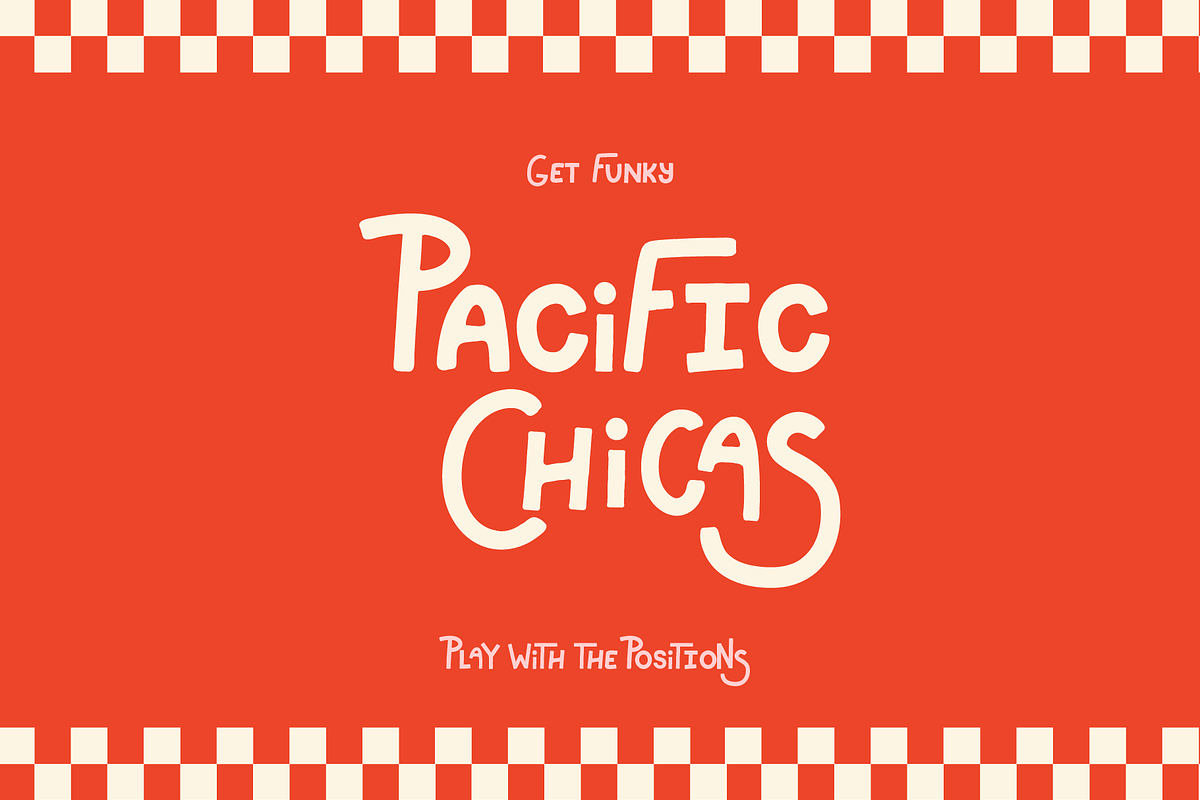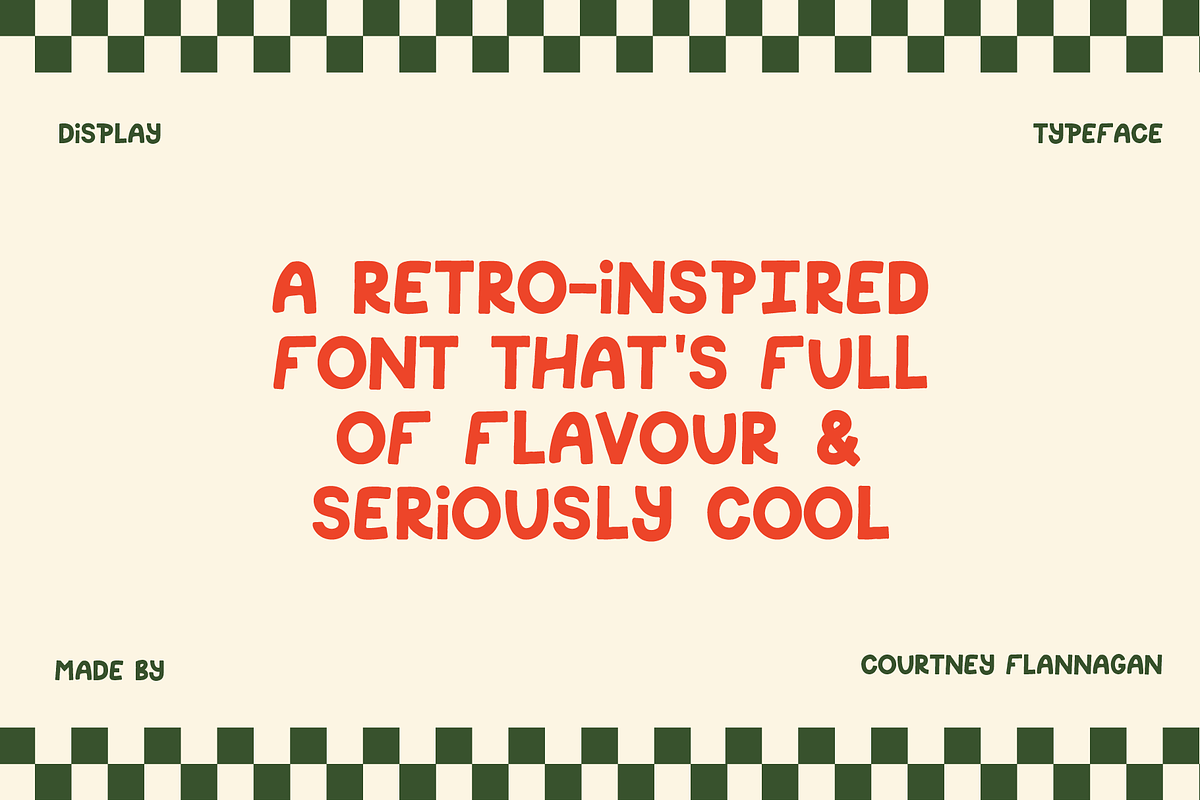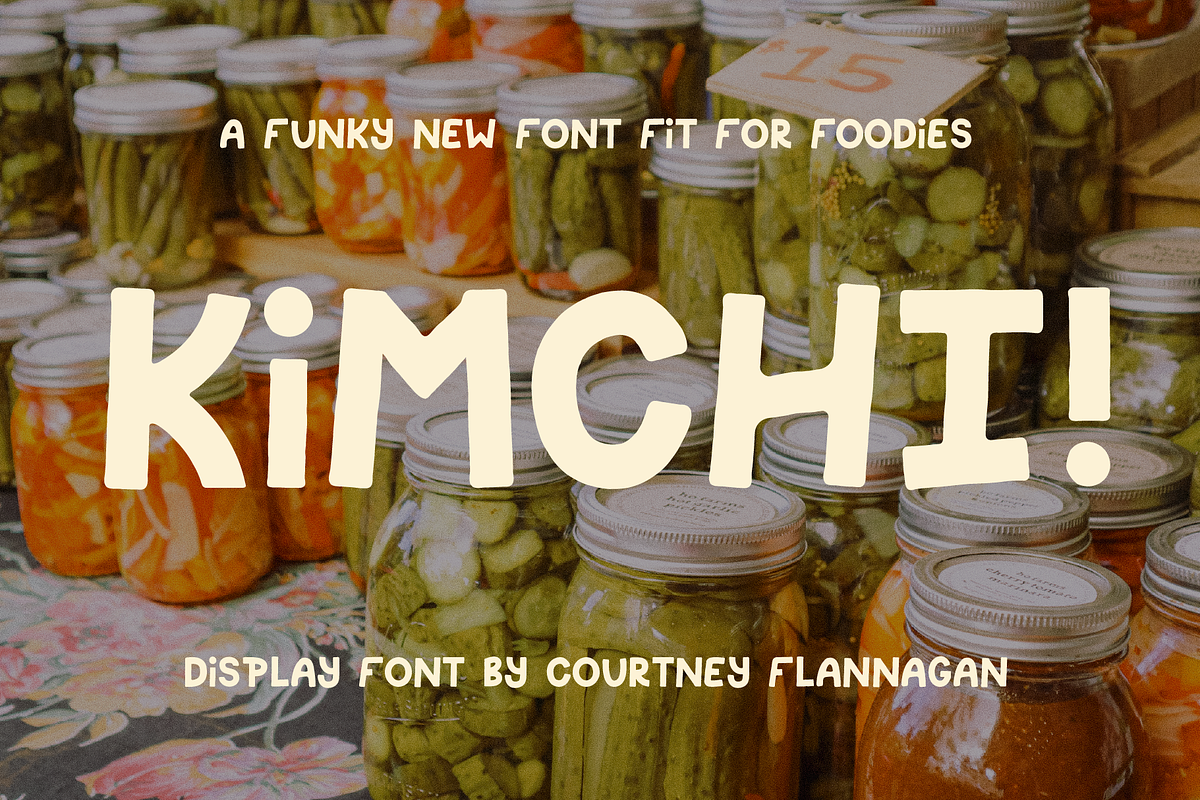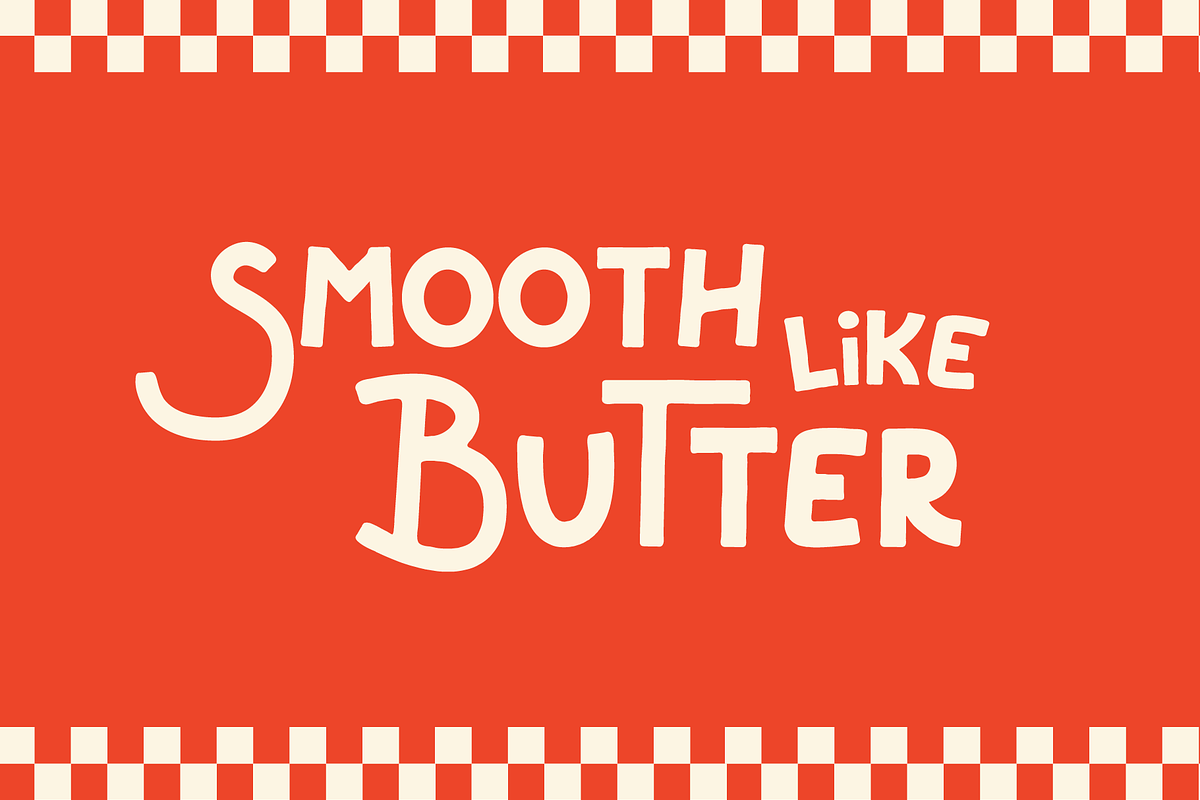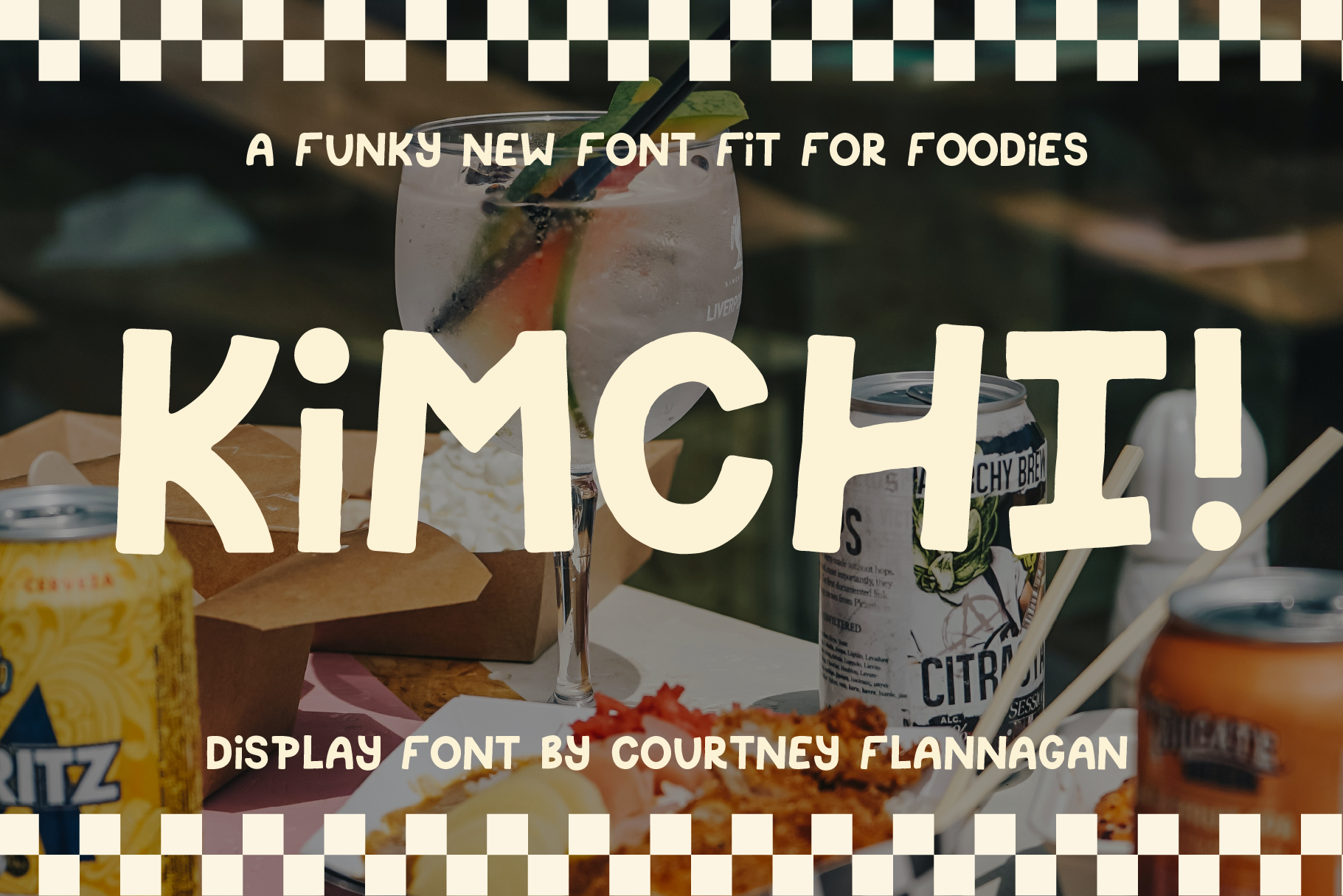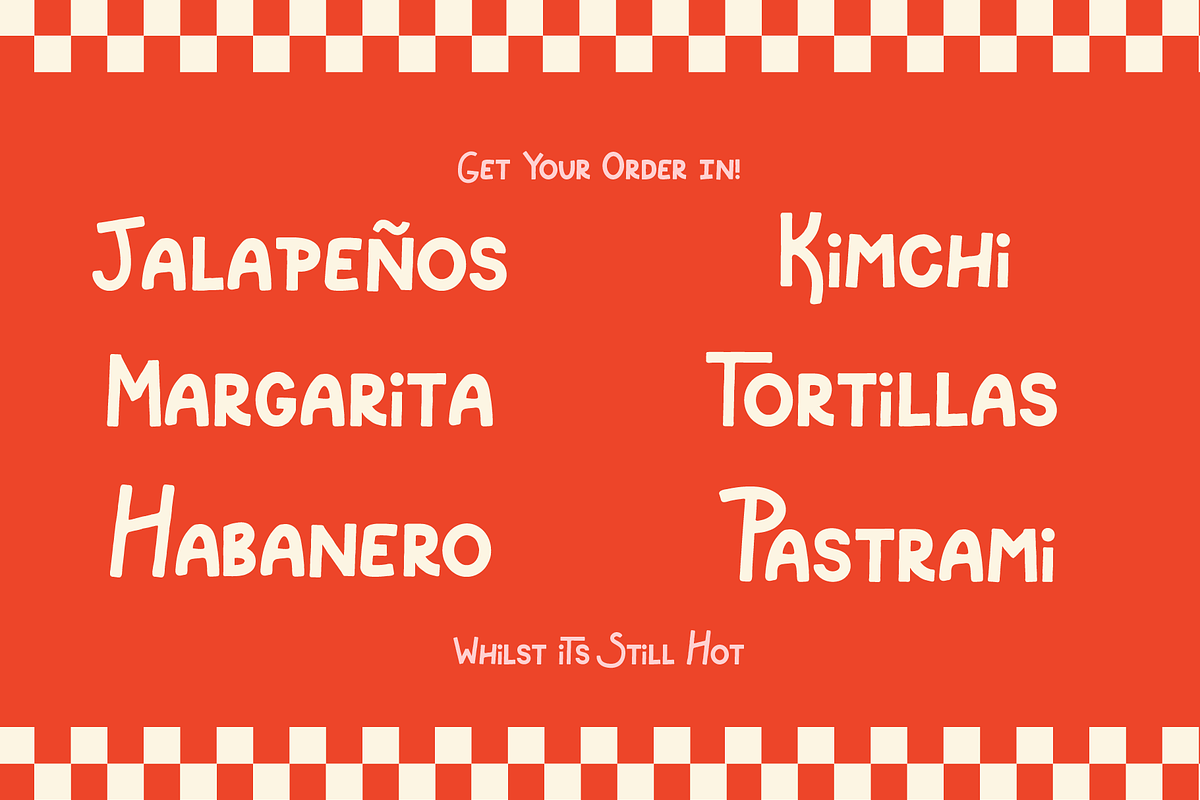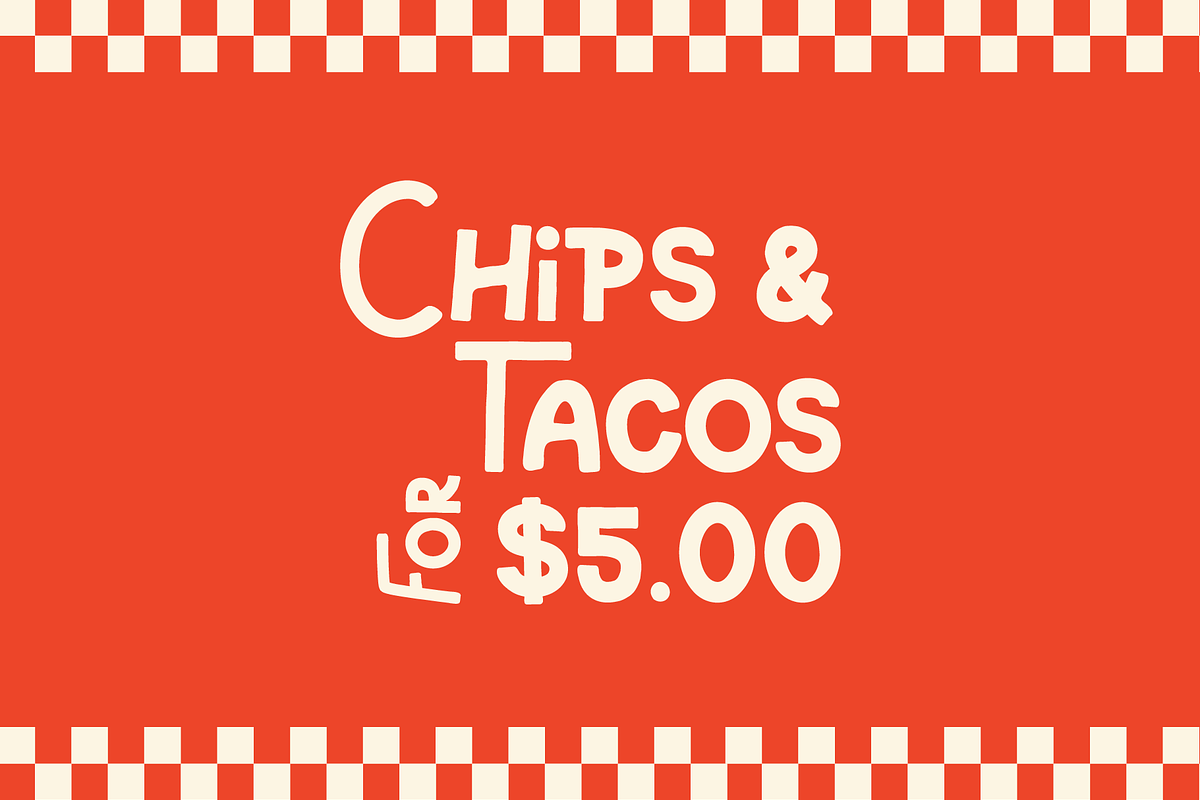
Retro foodie Handdrawn Font Kimchi
Kimchi is a bold, funky, and effortlessly cool hand-drawn typeface with a playful retro touch. Designed to bring personality and flair to your projects, this font is perfect for creatives looking to add a unique, nostalgic vibe to their work.
Where It Shines:
- ✔️ Ideal for food & beverage branding, menus, and packaging
- ✔️ Perfect for retro-inspired designs, posters, and social media graphics
- ✔️ Adds a hand-crafted, artistic feel to logos and merchandise
What Makes It Special:
- 🔸 Fully uppercase with alternate uppercase variations and glyphs for customization
- 🔸 Hand-drawn imperfections give it a quirky, organic look
Give your designs a serious dose of vintage charm with Kimchi!